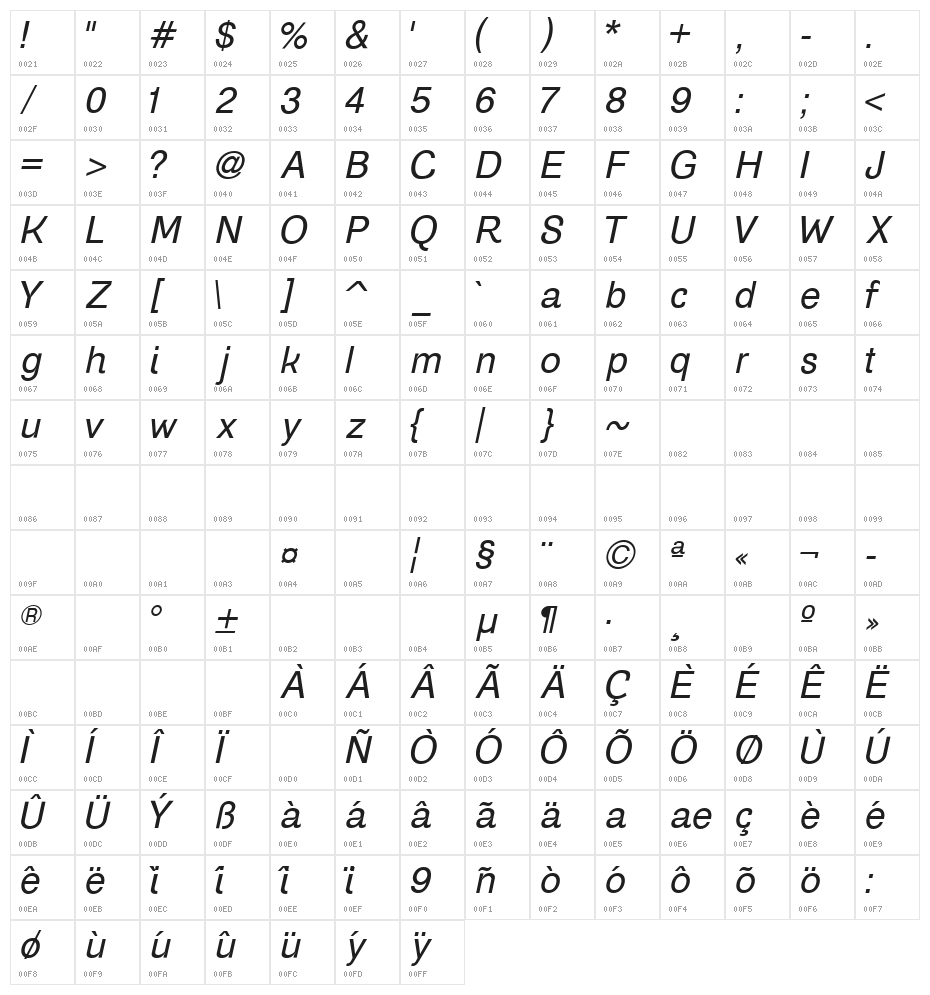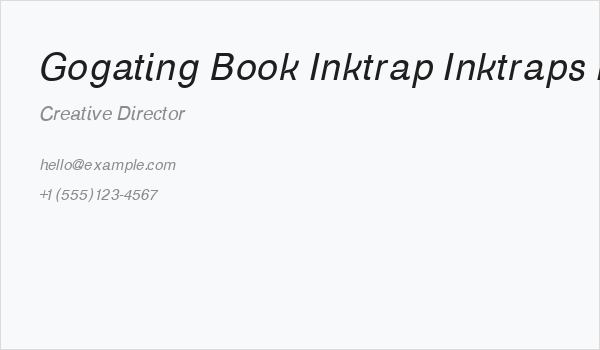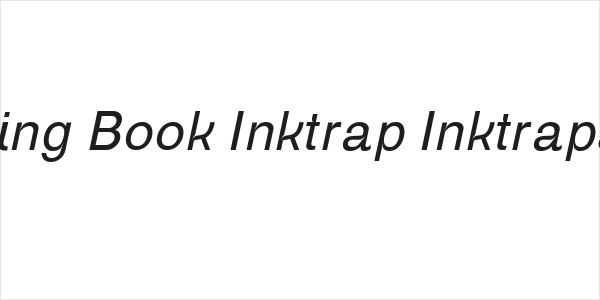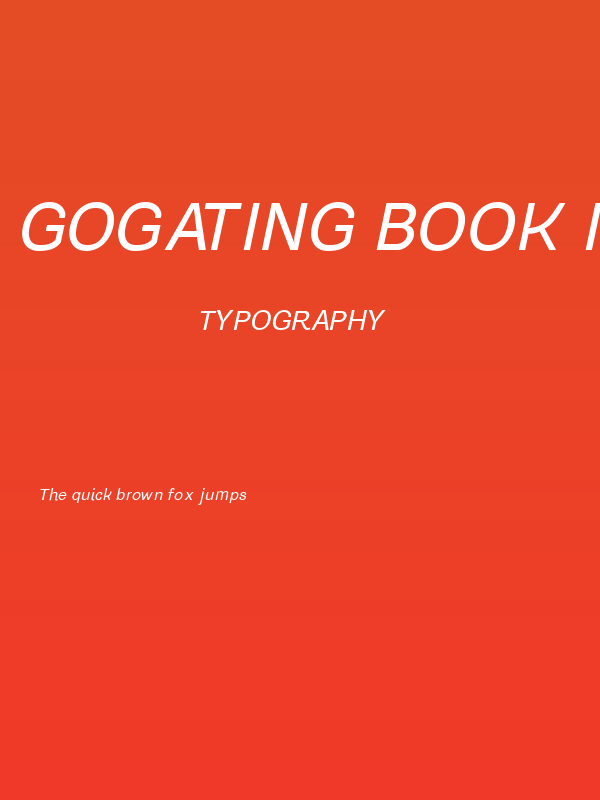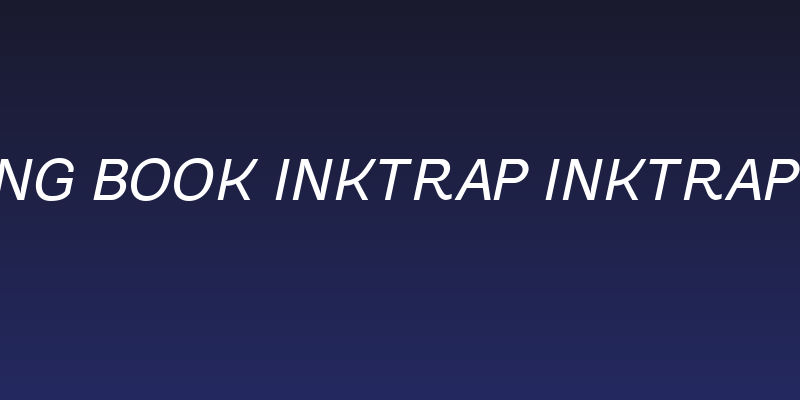
Gogating Book Inktrap Inktraps Italic Font
Gogating Book Inktrap Inktraps Italic Description
This font features a modern and sleek design with a slight italic slant, giving it a dynamic and forward-moving appearance. The characters are clean and well-defined, with subtle inktraps that enhance legibility at smaller sizes. The overall aesthetic is contemporary, making it suitable for a variety of digital and print applications. The uppercase and lowercase letters are well-proportioned, and the numerals are clear and easy to read. Special characters are included, maintaining the font's cohesive style. The font's design balances elegance with functionality, making it versatile for both professional and creative projects.
| Proposed Projects | Ideal for branding, editorial design, websites, and advertising materials. |